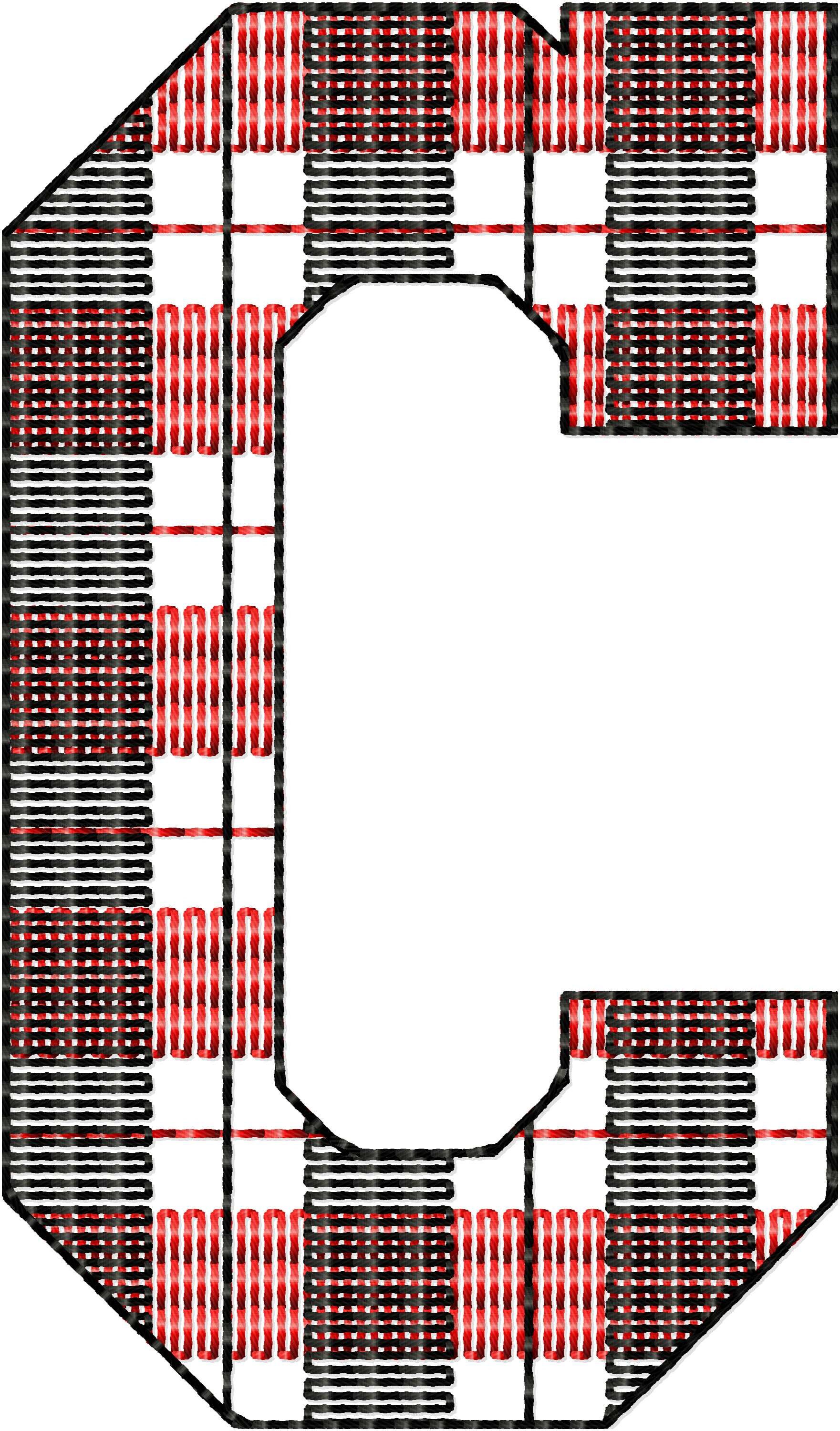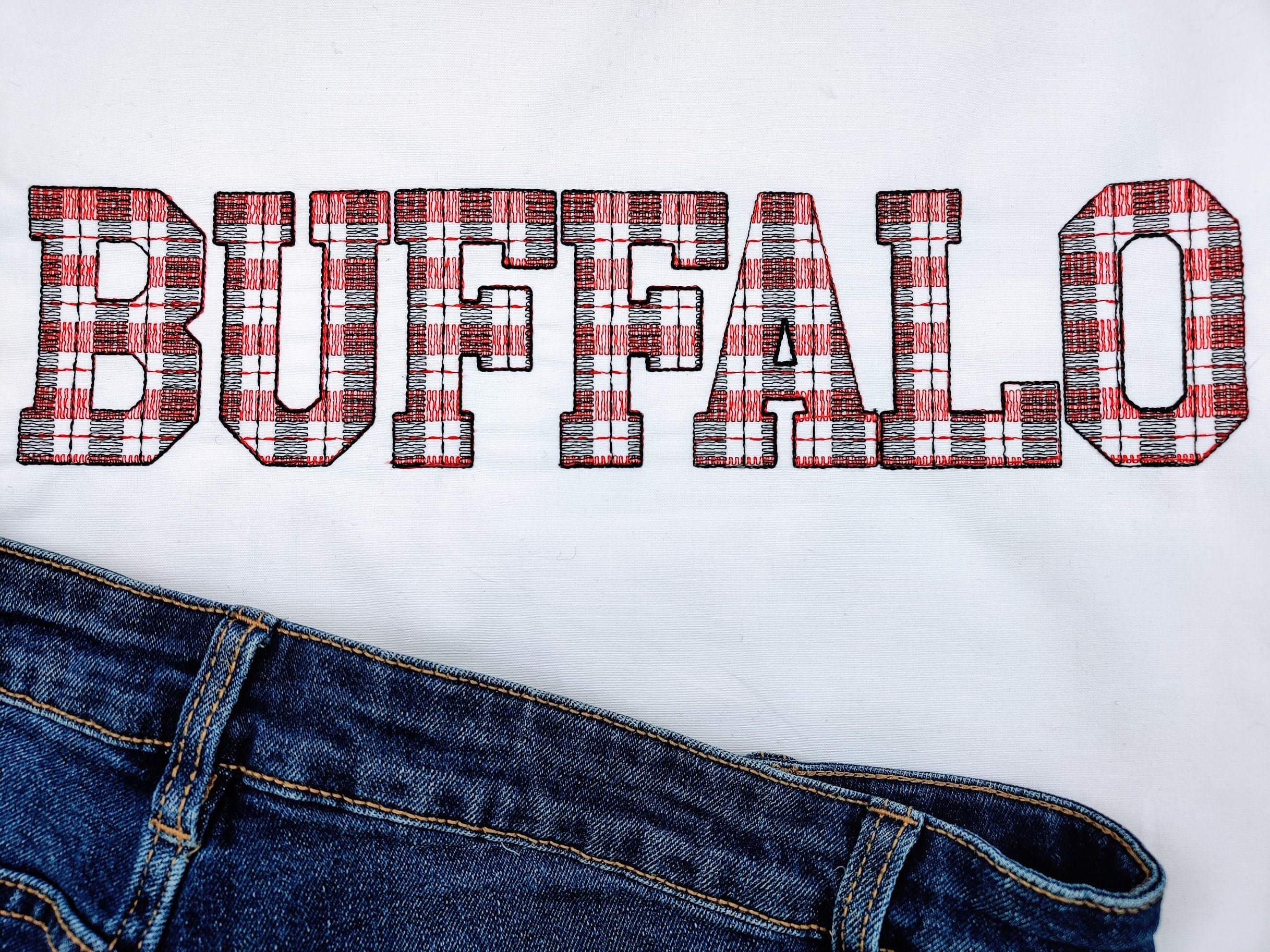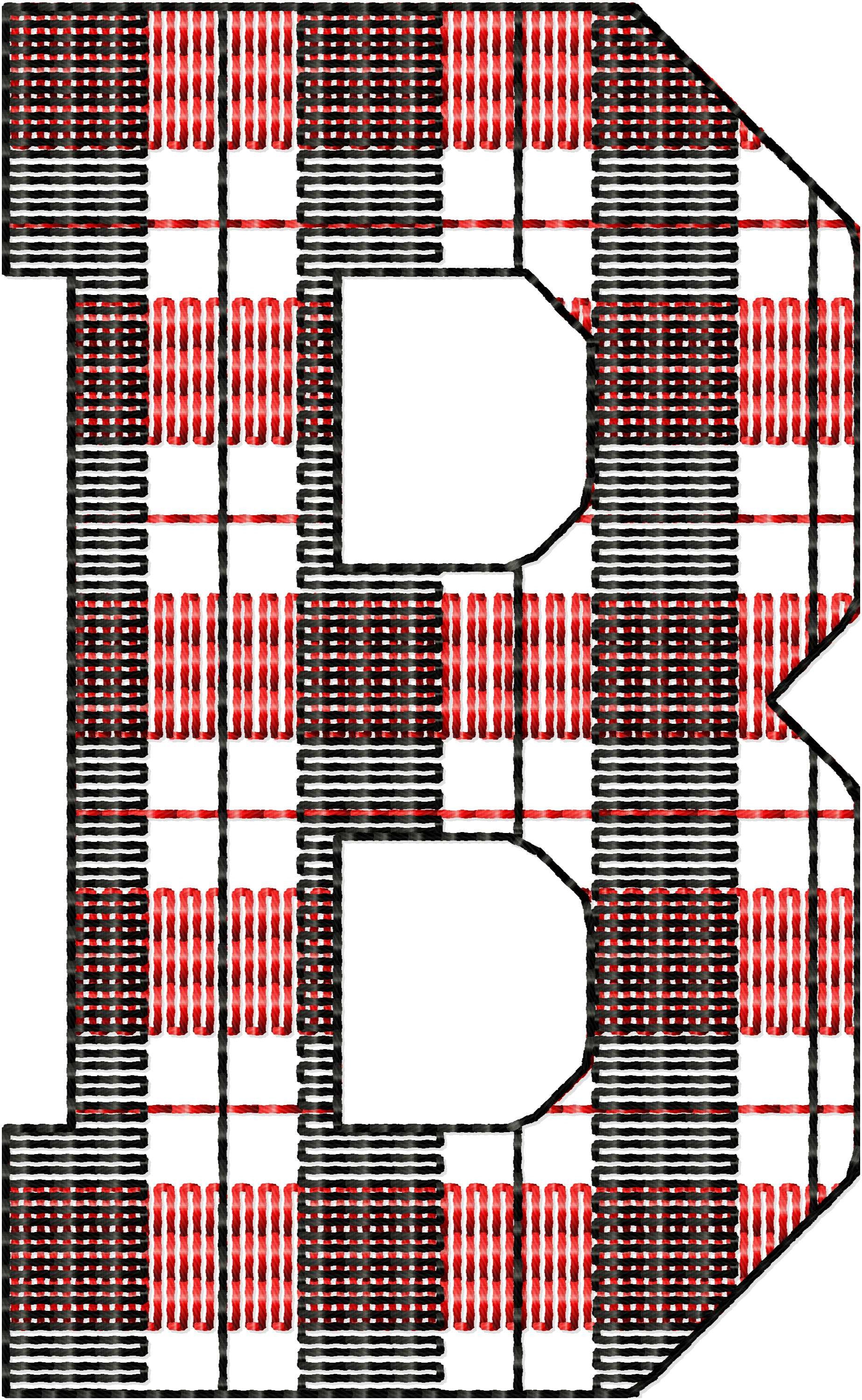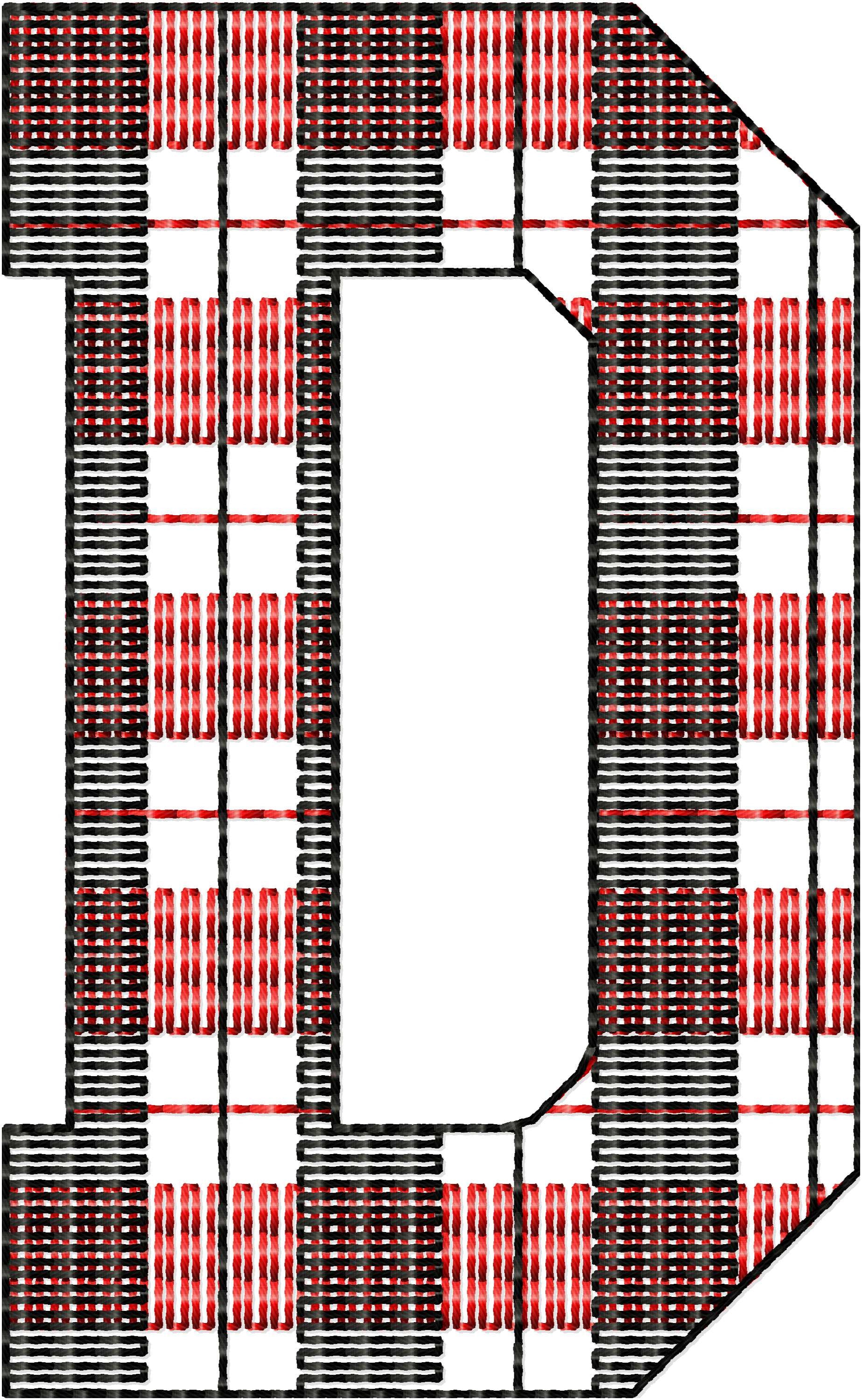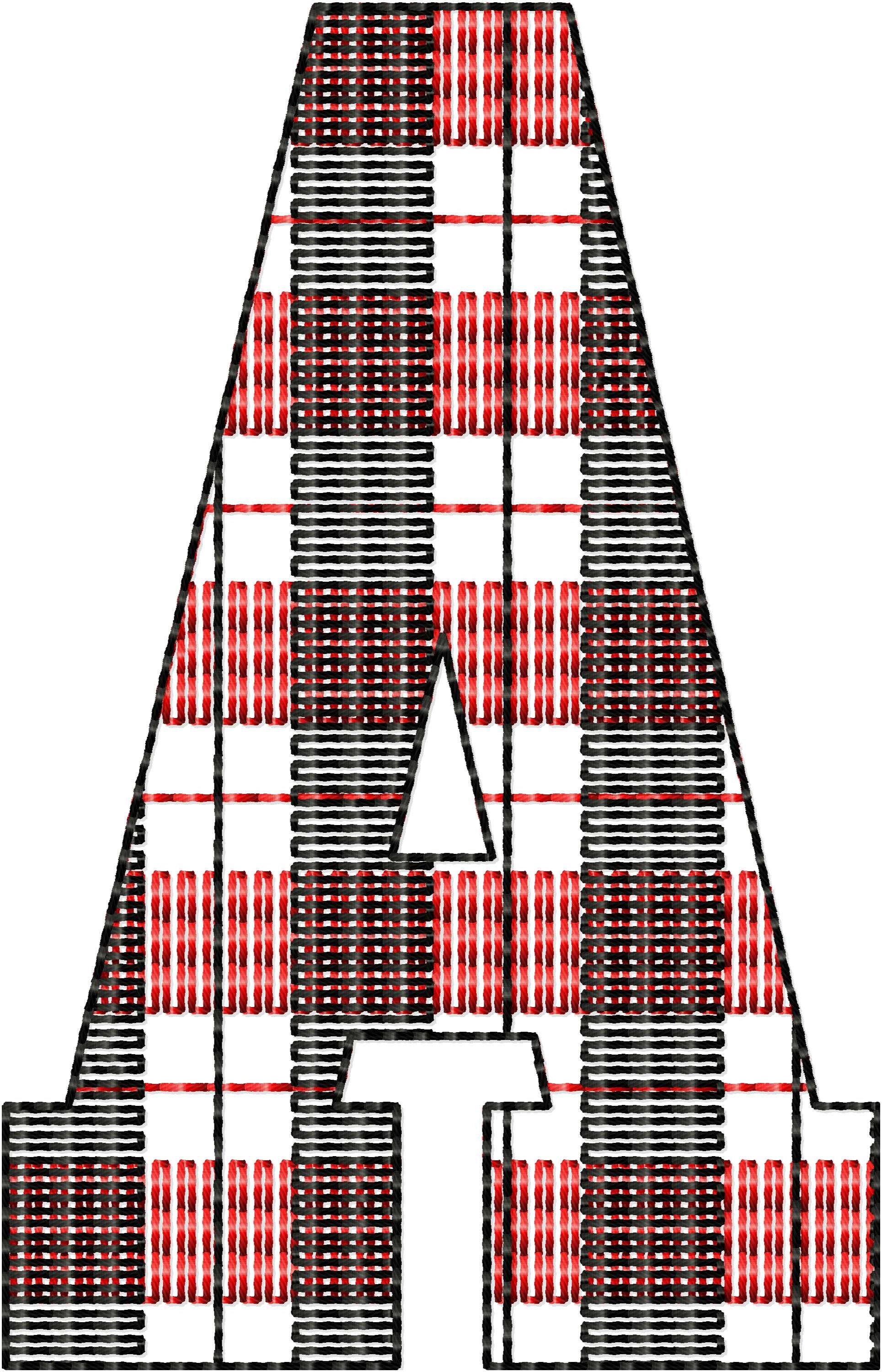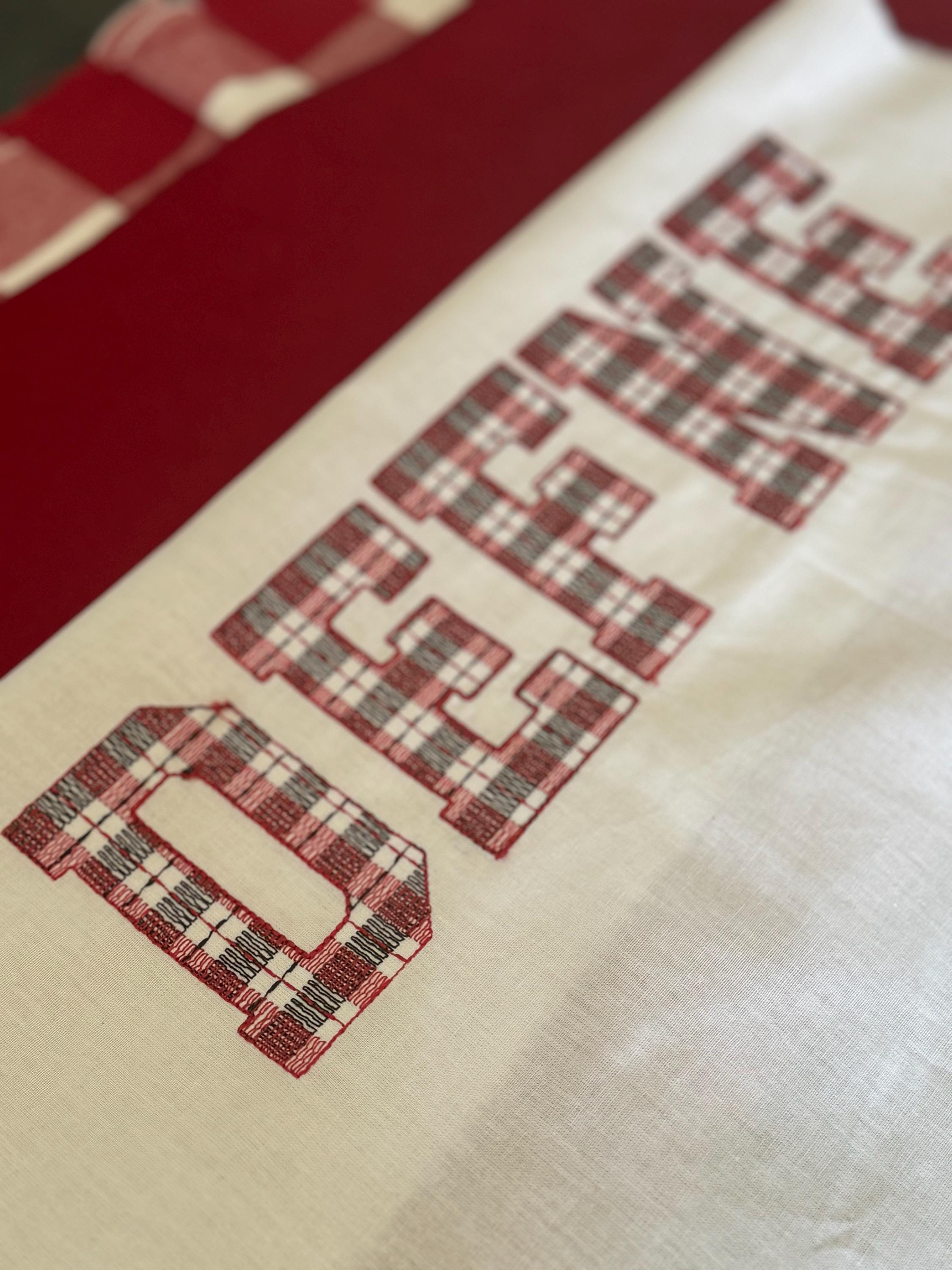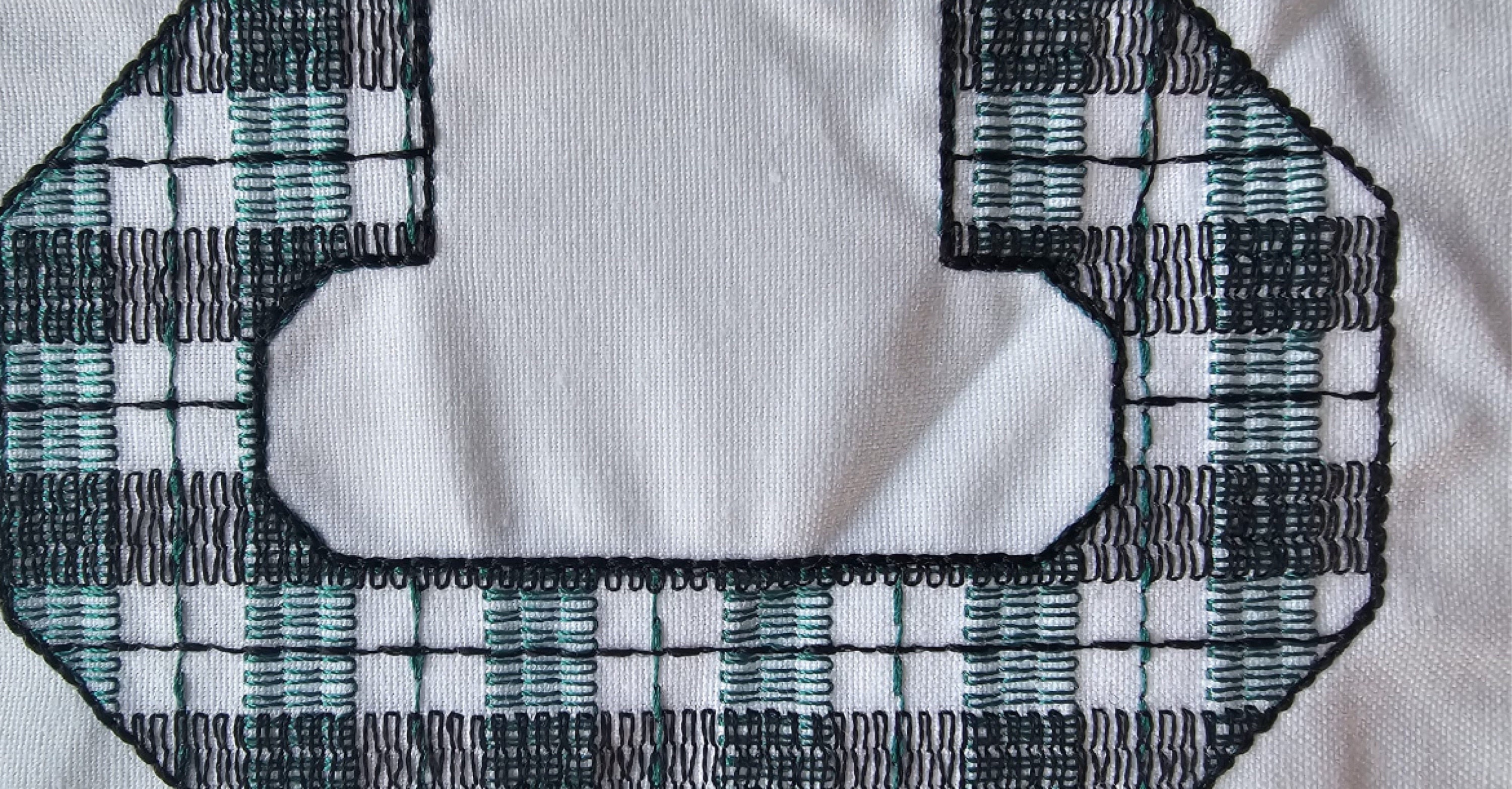
Buffalo Plaid Tartan Gingham Sport Font, letters and numbers, machine embroidery font design 2, 3, 3.5, 4, 5, 6, 7in, BX included
Gingham plaid print is a part of the embroidery.
Whole alphabet uppercase A-Z, numbers 0-9, and ampersand &
This is a beautiful font but the digitizer isn't consistent with the finishing outline. On some it is thick like a triple bean stitch and others just a standard line.